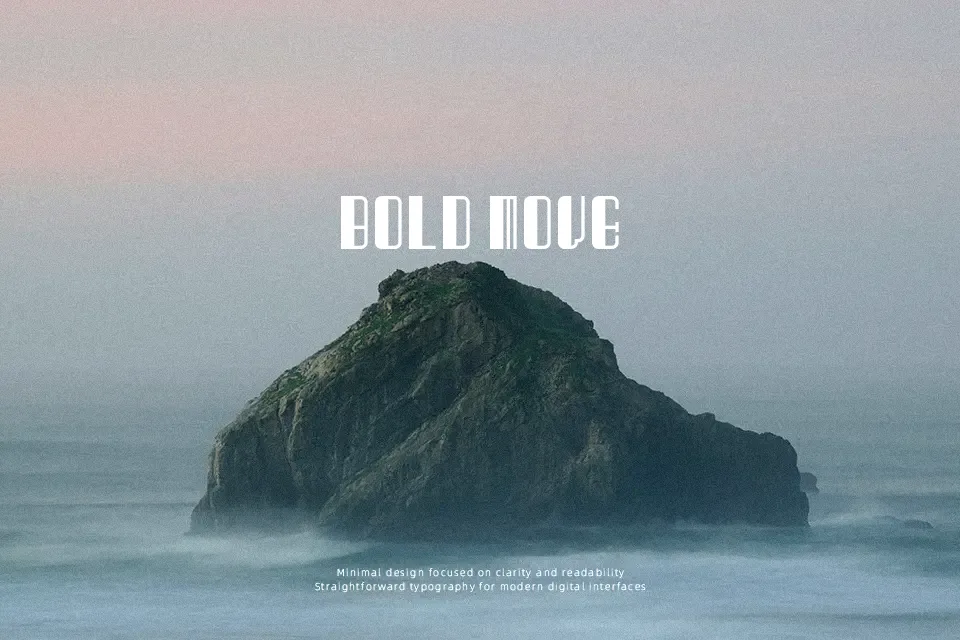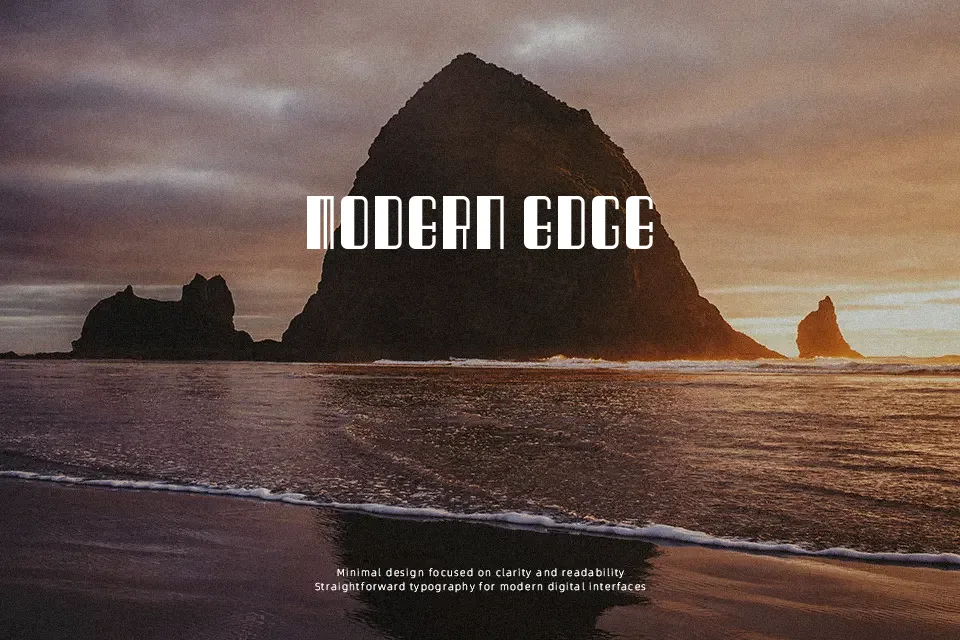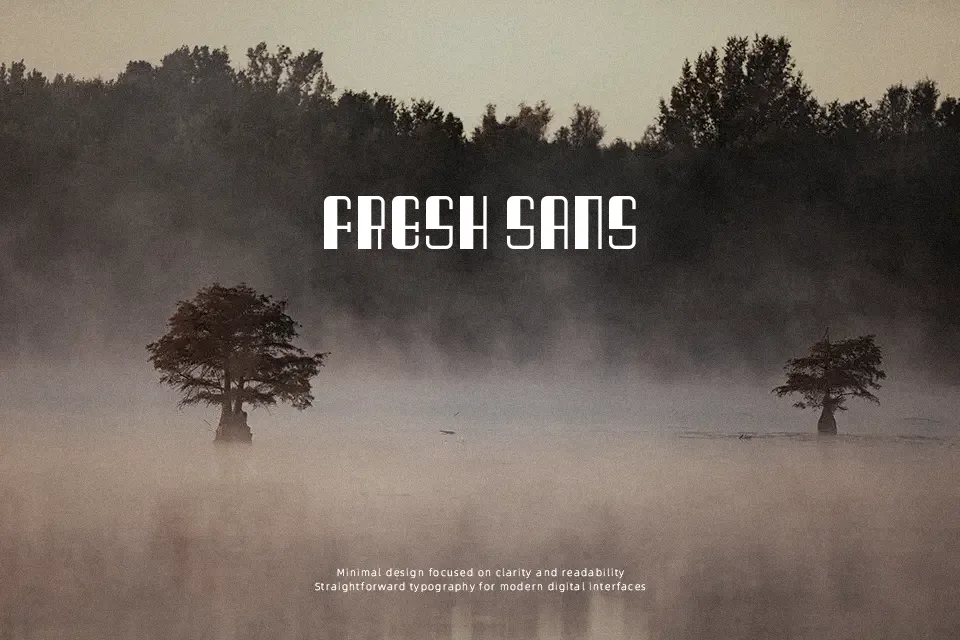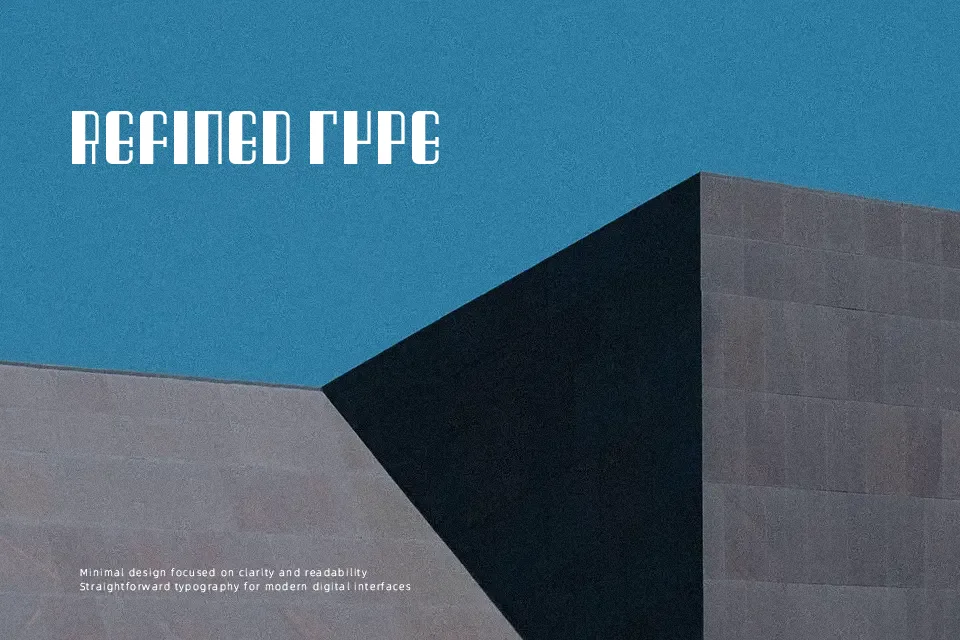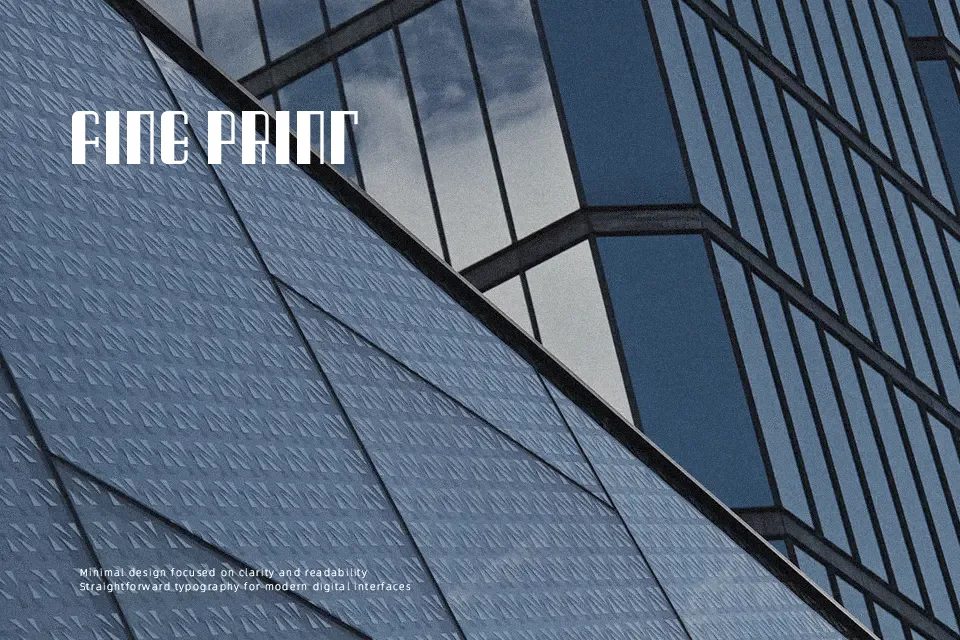
Barcode Deco! Font
Designed by Harry Blakeman
Tall, condensed letterforms built from rigid vertical bars give Barcode Deco! a distinctive look that sits somewhere between Art Deco structure and industrial signage. The strokes are uniform in weight with minimal horizontal variation, creating a stacked, almost architectural rhythm across a line of text. That visual density reads well at large headline sizes — think a vinyl record sleeve title or a retro streetwear drop graphic. At small sizes, though, letterforms lose clarity quickly, and the tight spacing makes this a poor fit for anything below 24pt. It’s a single-weight, all-caps-style display face; don’t reach for it when you need readability across a paragraph or a hierarchy with varying weights.
Best For:- Retro-themed poster and event flyer headlines
– Streetwear or music merchandise label titles
– Vintage packaging header text
– Art Deco-inspired brand wordmarks
Not Ideal For:- Body text or extended reading passages
– Small-size applications under 24pt
– Corporate or formal business documents
– Digital UI labels requiring high legibility
Perfect for advertising, branding, and headline, with a bold and condensed style.